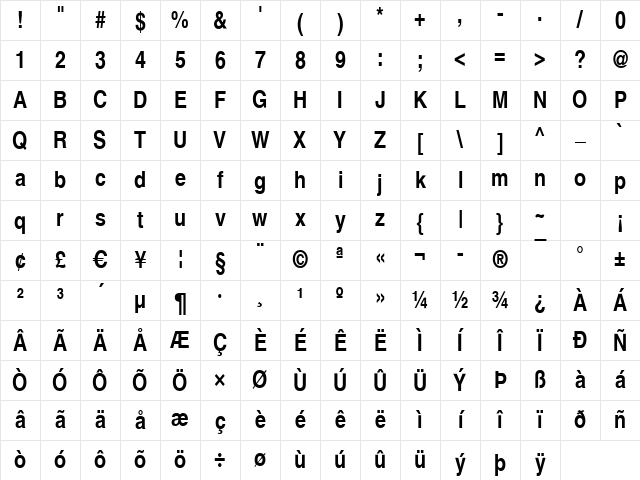
Complete Sans-PS-Cd Bold glyph index. Displaying only characters natively supported by Sans-PS-Cd Bold font.
Sans-PS-Cd is a composed and adaptable typeface that performs quietly and consistently across a wide range of design contexts. Its bold stroke weight gives it real presence on the page.